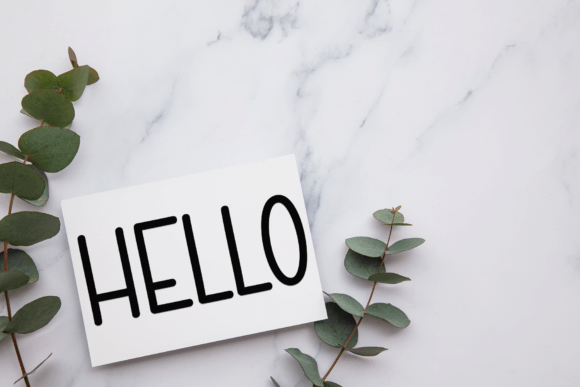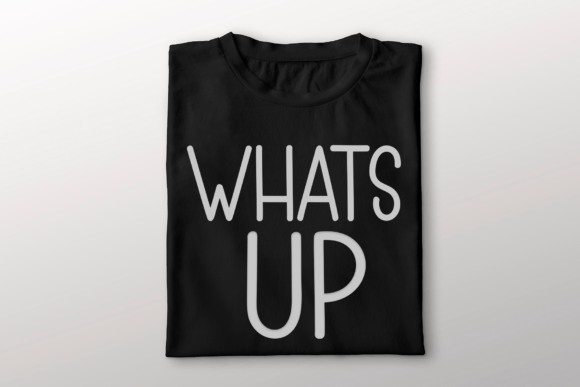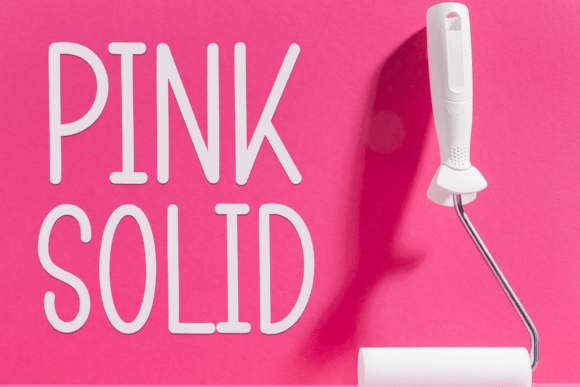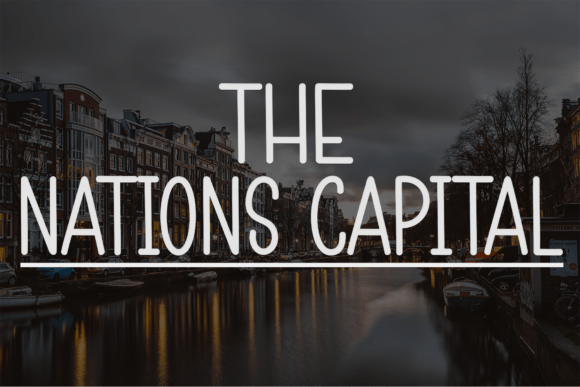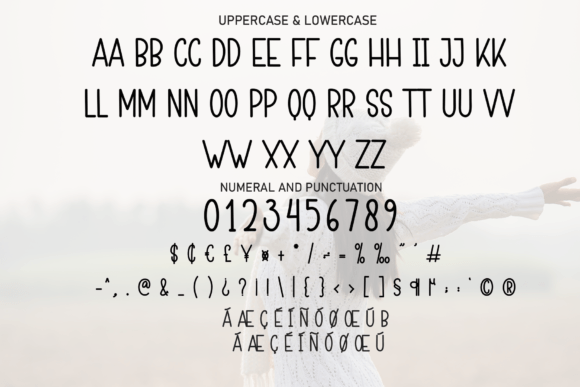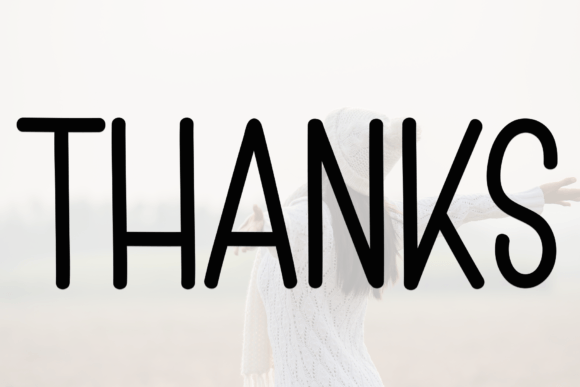
The Perfect Script for a Special Occasion
Have you ever been scrolling through your social media feeds, and suddenly, a beautiful handwritten wedding invitation catches your eye? The delicate curves, the playful flourishes – it’s the perfect combination of elegance and whimsy. That’s exactly what you’ll get with the Happy Woman Font, a sweet and friendly handwritten font that’s sure to bring a smile to anyone’s face.
Whether you’re a seasoned designer or just starting out, the Happy Woman Font is a valuable addition to your toolkit. With its fresh and neat design, it’s perfect for writing wedding invitations, cards, or any other design that needs a fun touch. Its versatility makes it a go-to choice for creatives who want to add a personal touch to their work.
Happy Woman Font Key Features
- Font Family: Happy Woman is a sans-serif font designed for modern and playful typography.
- Unique Characteristics: The font features a unique, hand-drawn design with a mix of rounded and geometric shapes, giving it a friendly and approachable feel.
- Language Support: The font supports a wide range of languages, including Latin, Cyrillic, and Greek, making it a versatile choice for global design projects.
Happy Woman Font Review
I recently had the chance to work with the Happy Woman font, and I have to say it’s a unique and attention-grabbing choice for any design project.
The Happy Woman font has a playful, hand-drawn feel that’s perfect for adding a touch of whimsy to your designs.
The font’s bold lines and rounded edges make it easy to read, even at smaller sizes.
The font’s versatility allows it to be used for a wide range of applications, from headings to body text.
The font’s quirky feel may not be suitable for all projects, especially those requiring a more formal or professional tone.
The font’s bold lines may not be suitable for small-scale text, as they can become too prominent.
The font’s limited character set may require additional font pairing to accommodate all the characters you need.
Overall, the Happy Woman font is a great choice for designers looking to add a touch of personality to their projects. While it may have some limitations, its unique feel and versatility make it a great option for the right project.
For best results, use Happy Woman Font for designs that require a playful, feminine touch. Common use cases include social media graphics, blog headers, and product labels. To get the most out of the font, experiment with different font sizes, colors, and combinations with other fonts.
Alternative Fonts for Happy Woman Font
Great Vibes is a modern, elegant script font that conveys a sense of happiness and positivity. It’s ideal for use in wedding invitations, social media graphics, and other projects where a friendly, approachable feel is desired.
Compared to Happy Woman Font, Great Vibes has a more refined and sophisticated look, making it suitable for more formal or professional applications.
Lobster is a fun, cursive font that’s perfect for adding a playful touch to your designs. It’s great for use in advertisements, social media posts, and other projects where a lighthearted, casual feel is desired.
Lobster is more informal than Happy Woman Font and has a more relaxed, laid-back vibe.
Pacifico is a beautiful, elegant script font that evokes a sense of relaxation and serenity. It’s ideal for use in beach-themed designs, travel brochures, and other projects where a calm, peaceful feel is desired.
Q: What is the character set of the Happy Woman Font?
The Happy Woman Font includes a comprehensive character set, including Latin, Cyrillic, and Greek alphabets, as well as punctuation and symbol characters. The font also supports a wide range of languages, including English, Spanish, French, German, Italian, Portuguese, and many others.